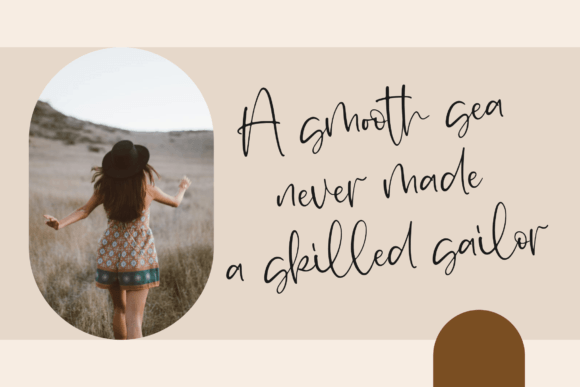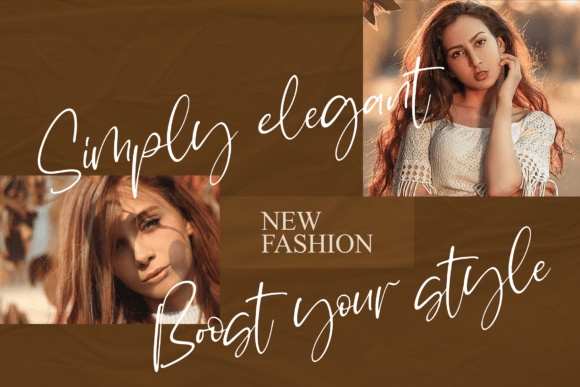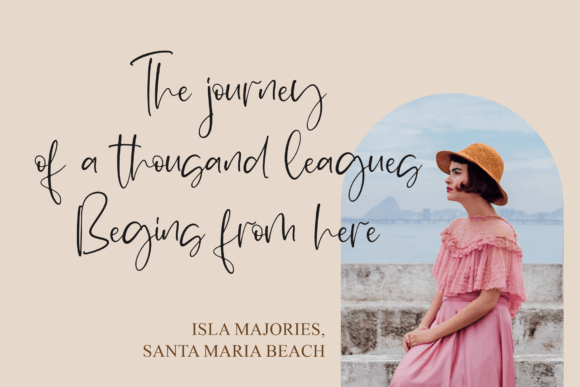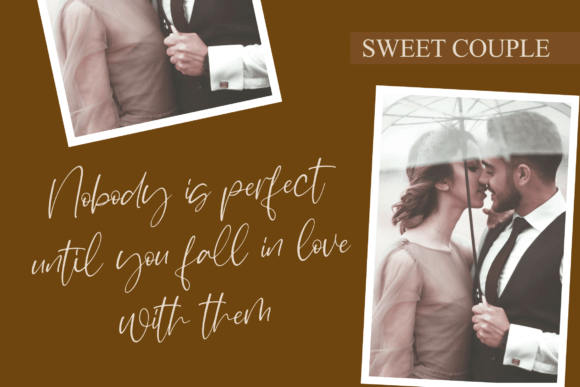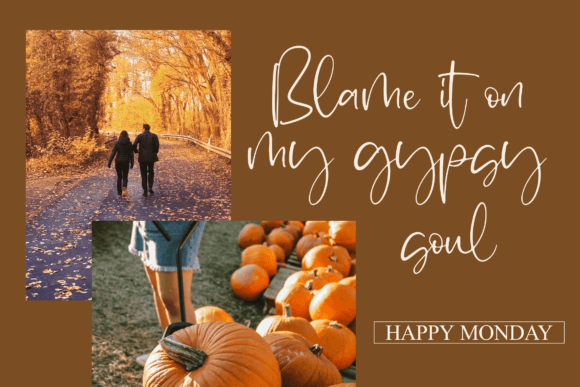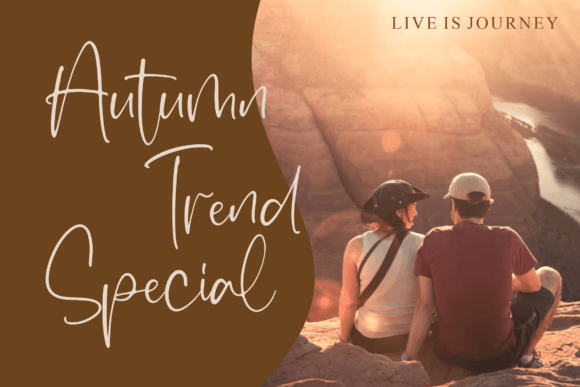
Discover the Elegance of Calling Novelya Font: Elevate Your Designs with a Slim and Exquisite Handwritten Style
Are you on the hunt for a font that embodies the perfect blend of style, grace, and natural elegance? Look no further than the Calling Novelya Font. This slim and exquisite handwritten font is designed to transform your creations, adding a touch of sophistication and refinement that sets them apart. In this article, we’ll dive into the unique features of Calling Novelya, exploring how it can elevate your designs while maintaining a grounded, organic feel.
The Essence of Calling Novelya: A Slim and Exquisite Handwritten Font
Calling Novelya is more than just a font; it’s a design statement. Its slim and exquisite handwritten style flows with a grace that can instantly elevate the aesthetic of any project. Whether you’re working on a branding campaign, crafting a beautiful quote, or designing an invitation, Calling Novelya brings a level of elegance and sophistication that’s hard to match. Its flowing lines and delicate curves make it perfect for designs that require a personal touch, a sense of warmth, and an undeniable charm.
Stylish, Graceful, and Flowing: The Design Characteristics of Calling Novelya
The standout feature of Calling Novelya is its stylish and graceful appearance. Each letter is crafted with precision, ensuring a smooth flow from one character to the next. This fluidity gives the font its unique charm, making it perfect for a wide range of applications, from romantic wedding invitations to elegant branding and packaging. The flowing nature of Calling Novelya not only adds visual interest but also creates a sense of movement, drawing the viewer’s eye through the text.
What sets Calling Novelya apart from many other fonts is its PUA (Private Use Area) encoding. This feature allows designers to access an extensive range of glyphs and ligatures with ease. For those who may not be familiar, glyphs are alternate forms of letters or symbols that can add variety and interest to your text, while ligatures are combinations of letters that join together in a unique way. The PUA encoding of Calling Novelya means you can unlock these creative elements without needing specialized software, making it incredibly user-friendly for designers of all levels.
Elevate Your Designs While Keeping Them Grounded and Natural
One of the challenges designers often face is finding a font that feels both sophisticated and approachable. Calling Novelya strikes the perfect balance, offering a level of refinement that elevates your designs without making them feel overly formal or detached. Its natural, handwritten quality gives your creations a personal touch, making them more relatable and engaging to your audience. Whether you’re designing for digital platforms or print, Calling Novelya ensures your work feels both luxurious and accessible.
Practical Applications of Calling Novelya Font
The versatility of Calling Novelya makes it suitable for a multitude of design projects. Here are a few ideas to get you started:
- Branding and Logotypes: Use Calling Novelya to create a memorable brand identity that stands out for its elegance and sophistication.
- Wedding and Event Invitations: Add a touch of romance and luxury to your invitations with this beautiful handwritten font.
- Packaging Design: Elevate your product packaging with a font that communicates quality and style.
- Social Media Graphics: Make your social media posts and stories stand out with the unique and flowing style of Calling Novelya.
Calling Novelya Font is a game-changer for designers and crafters looking to infuse their projects with a slim, exquisite, and handwritten elegance. Its stylish, graceful, and flowing design, combined with PUA encoding for easy access to glyphs and ligatures, makes it an invaluable tool in your design arsenal. Whether you’re aiming to create something that feels luxurious and refined or grounded and natural, Calling Novelya is the perfect choice. Discover the difference it can make in your designs today.